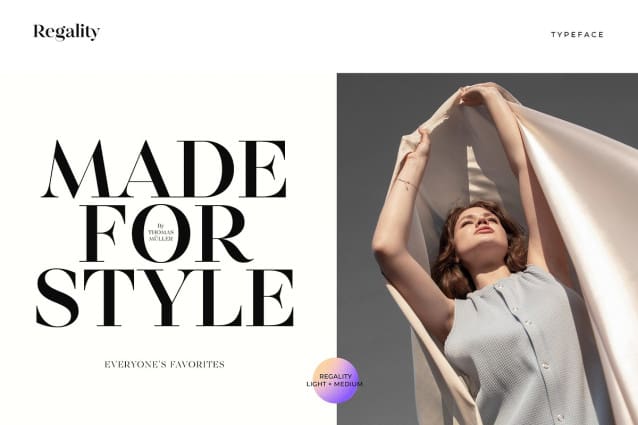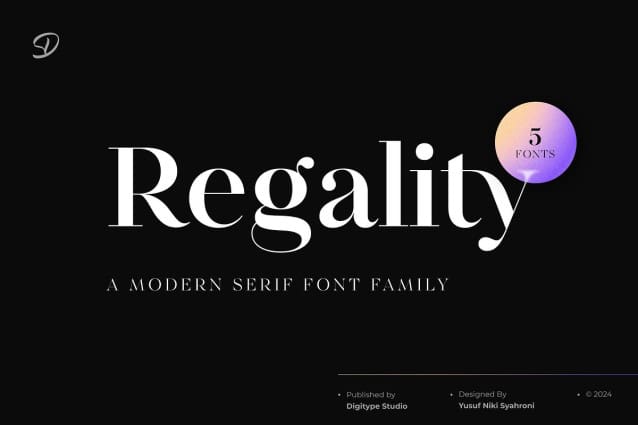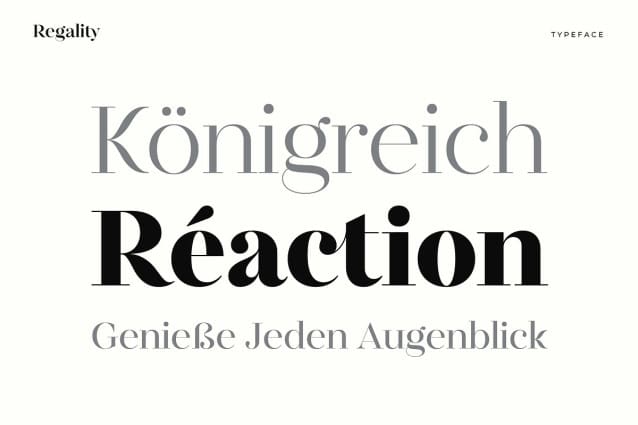
Regality Font Family
Regality Font Family, embodies classic and elegant characteristics inspired by 18th century typography. It features sharp contrast between thick and thin strokes, strong vertical lines and clean, flowing serifs. Ideal for editorial design, branding and projects that require elegance and prestige, Regality adds a modern touch to classic elegance. With a graceful and professional appearance, Regality ensures that text stands out and is easy to read while still conveying an impression of exclusivity and sophistication.